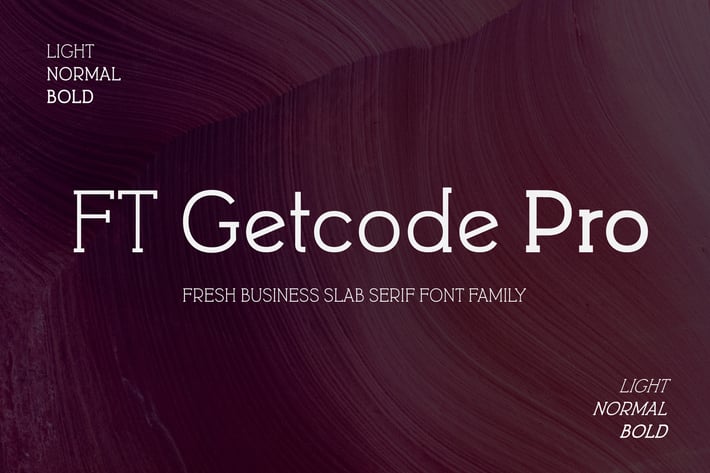
FT Getcode Pro Business Font Family
FT Getcode Pro is modern slab serif font family. It can easily be matched to an incredibly large set of projects for your company/ corporate, so add it to your creative ideas and notice how it makes them stand out!